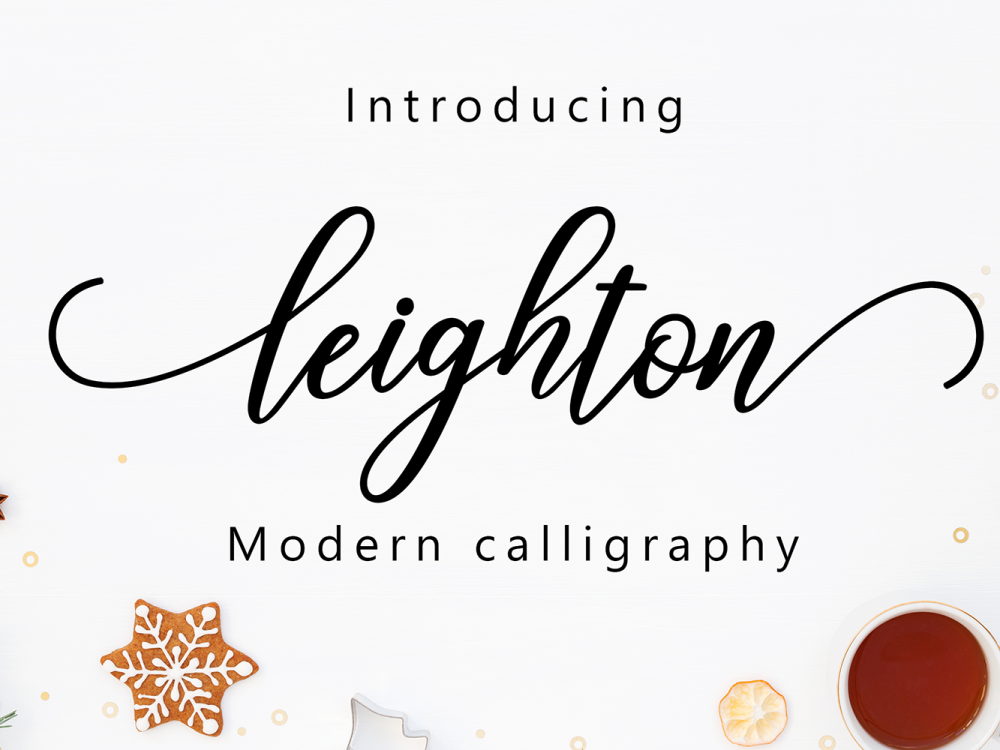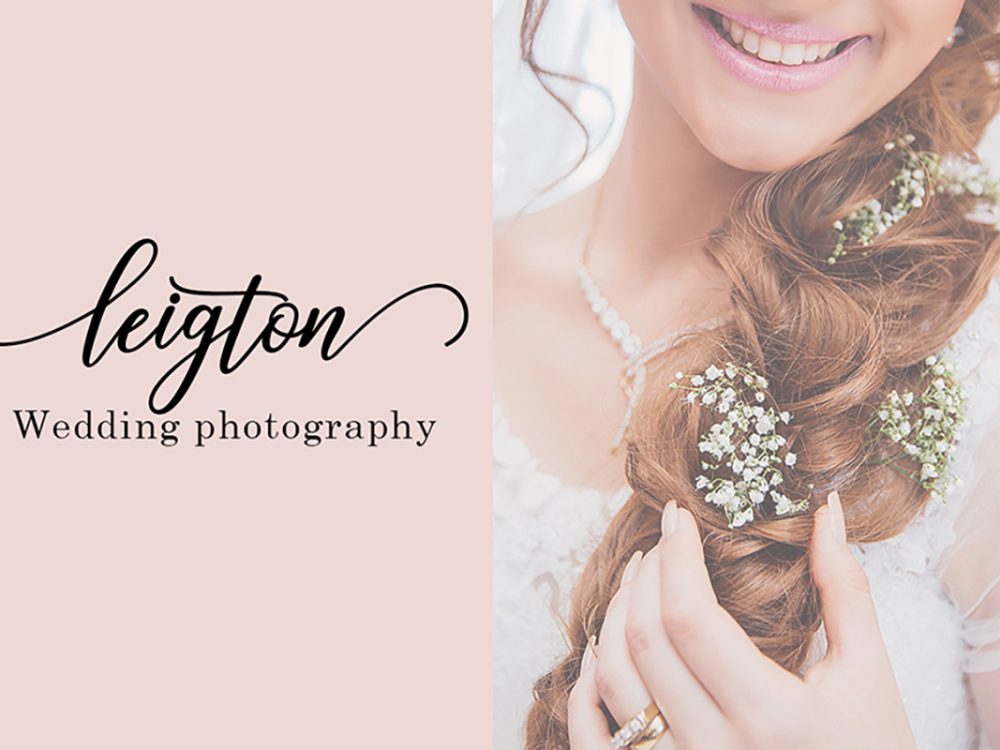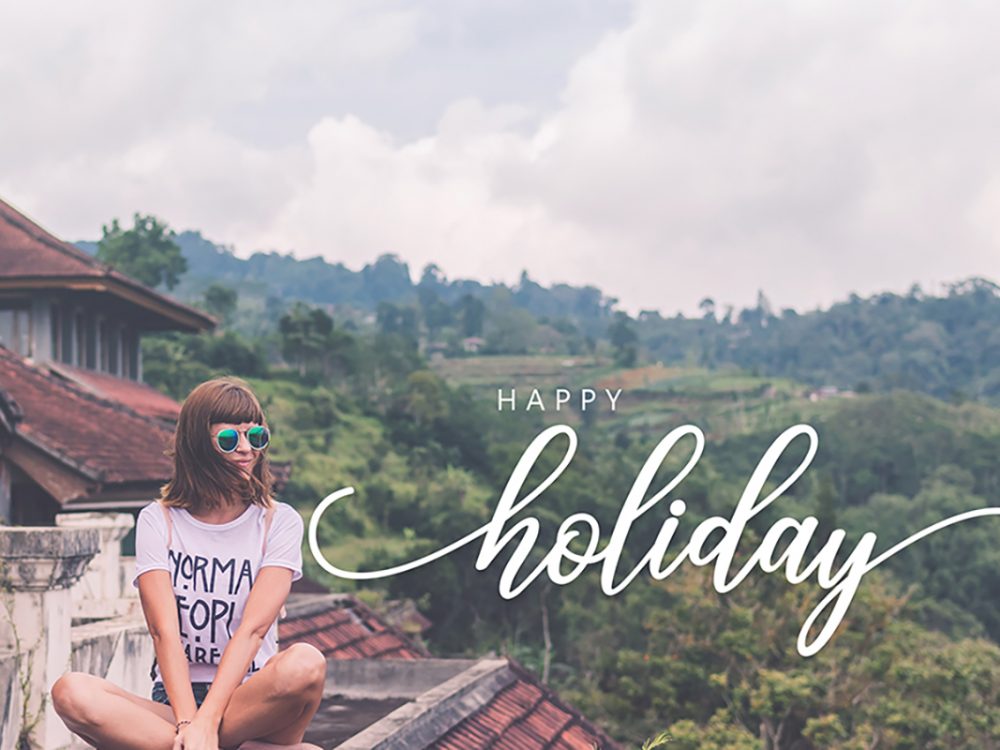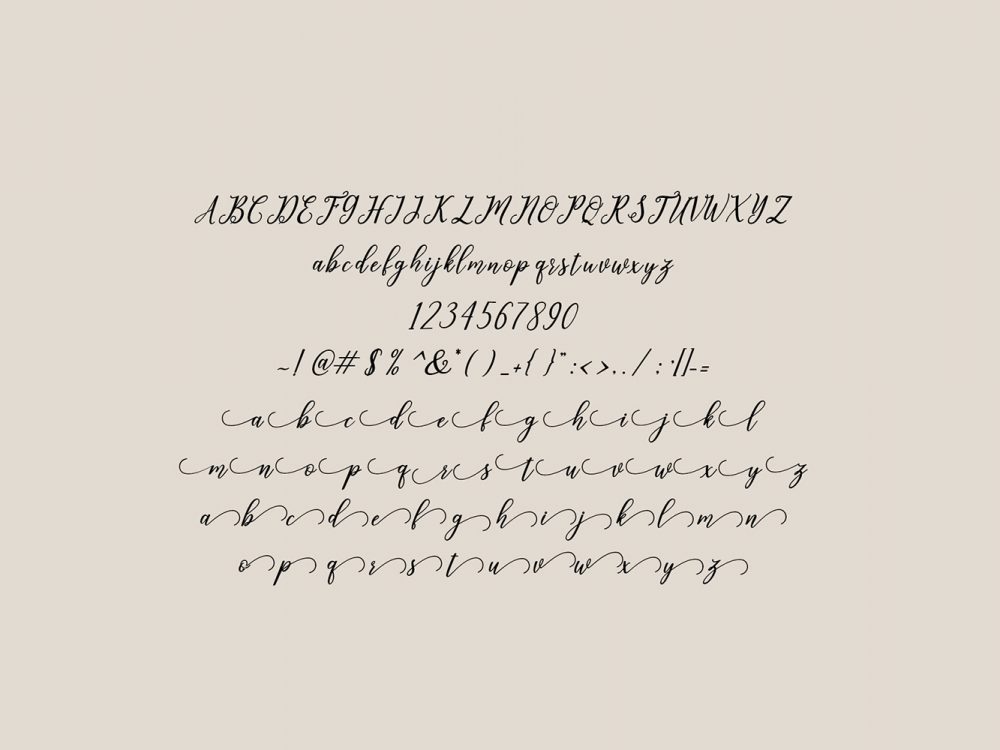
Leighton Handlettering Font
Leighton Handlettering Font is an interesting modern high-quality handwritten font that mimics brush writing and has an elegant style. Use this font to create a variety of design projects that require a handwritten font. These can be posters, wedding invitations, cards, branding, flyers, prints, and more. If you wish to access more features and use them for commercial work please buy the full version.